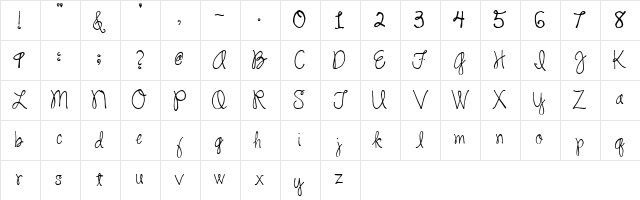
2Peas A Little Loopy Regular
Complete 2Peas A Little Loopy Regular glyph index. Displaying only characters natively supported by 2Peas A Little Loopy Regular font.
Design Context for 2Peas A Little Loopy
2Peas A Little Loopy is a composed and adaptable typeface that performs quietly and consistently across a wide range of design contexts.